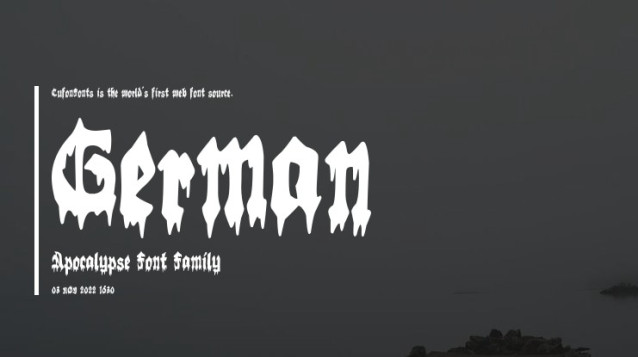
German Apocalypse Font
German Apocalypse Font is a distinct, highly detailed Horror Metal Font. It would make a great choice for exquisite retro-urban designs, tattoo business branding, logos, vintage designs, and more.